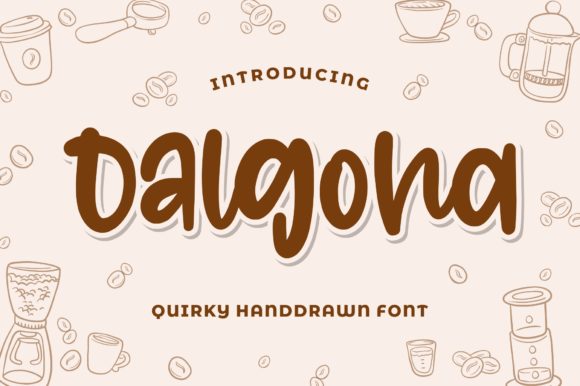
Behold, the Dalgona Font, a stroke of creative genius that breathes life into your designs with its casual, fun, and eye-catching style. This display font, crafted meticulously with a brush pen, is not just a collection of letters; it's an artistic expression that will transform your projects into visual masterpieces.
Step into a world of endless creative possibilities with the Dalgona Font. Let your imagination run wild as you create logos that exude personality, branding that speaks volumes, social media posts that captivate, and DIY projects that reflect your unique style.
With Dalgona Font, your designs will leave an indelible mark. Its clean lines and quirky charm will elevate your projects to new heights, capturing attention and sparking conversations.
Don't settle for ordinary fonts when you can embrace the extraordinary. Dalgona Font is the key to unlocking your creativity and transforming your designs into works of art. Dive into the world of Dalgona Font and let your imagination soar.